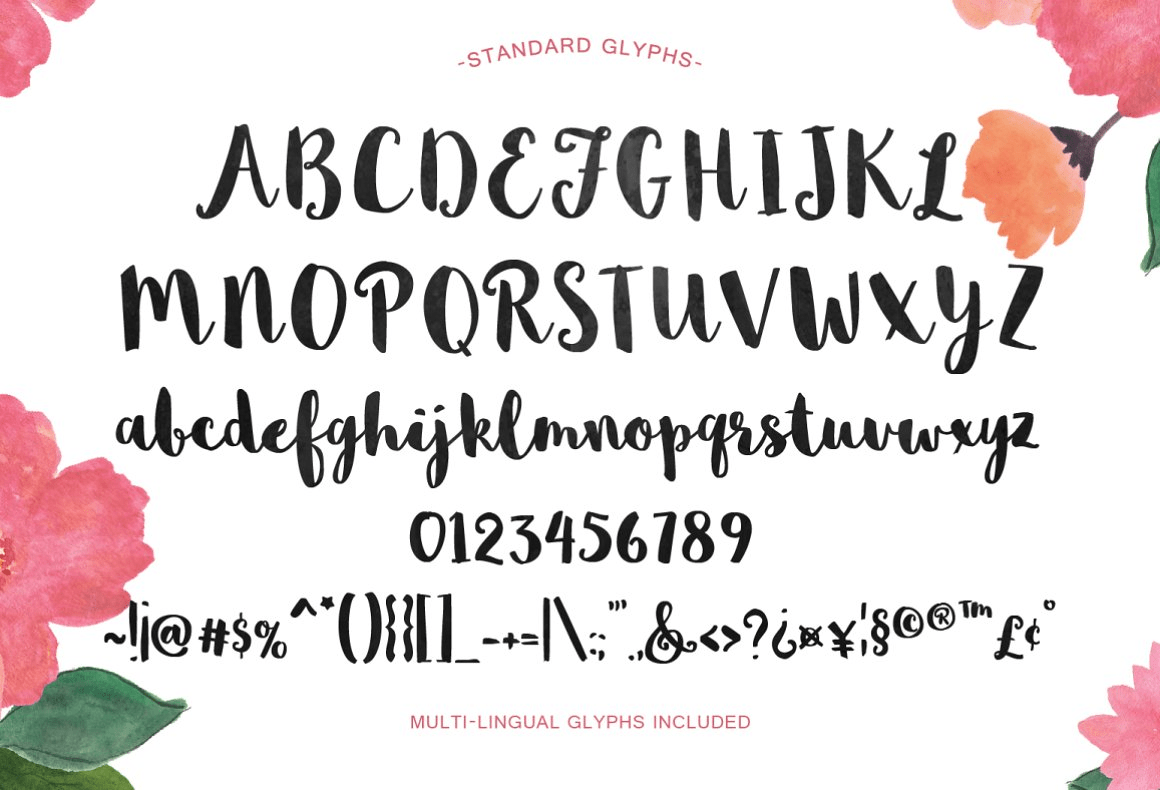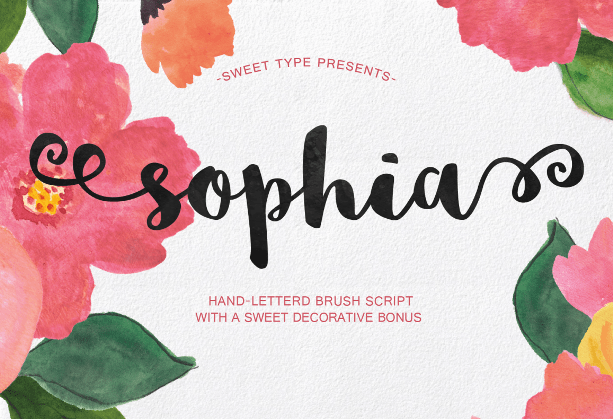
Sophia
About Sophia
Meet Sophia! She\’s sweet, she\’s saucy, and a she\’s a little shabby. A new hand-lettered brush style typeface. And an even Sweeter Bonus Two additional ornamental extra font files. Sophia Left and Right enable you to create your own decorated word styles.…